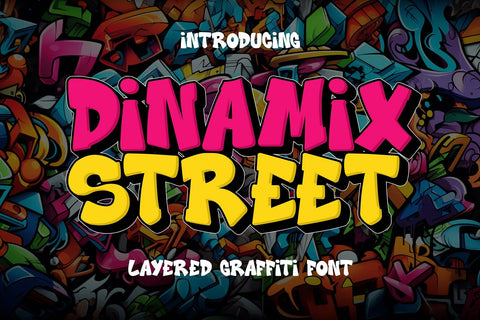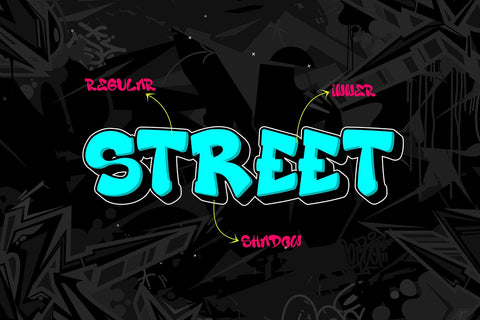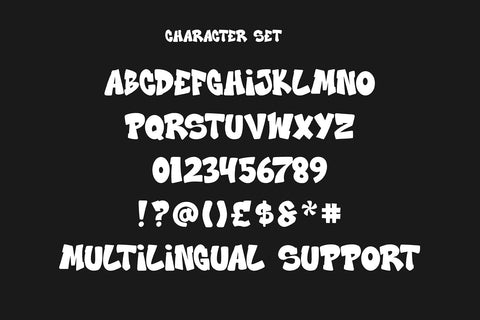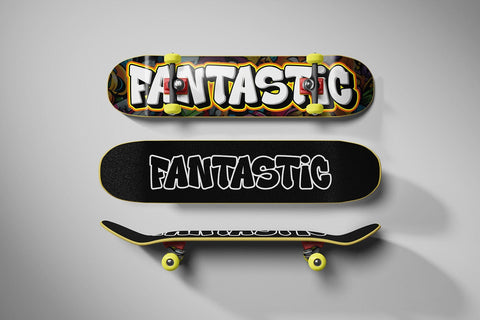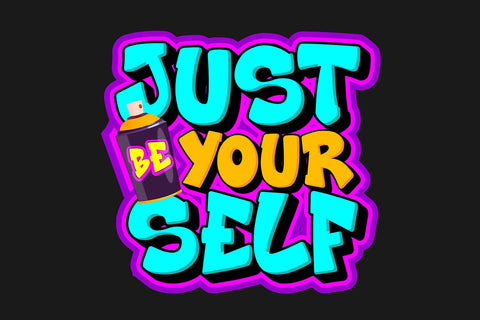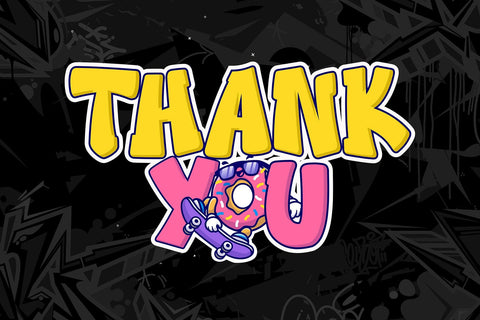
Dinamix Street - 3d Layered Graffiti Font
Dinamix Street is a vibrant 3D layered graffiti font that brings energy and depth to your designs. With its bold, dynamic characters and multi-layered structure, this font is perfect for creating eye-catching urban art that leaps off the page or screen. Each layer of Dynamic Street—whether it's the solid base, the shadow, or the extrude—adds dimension and a sense of movement, making it ideal for projects that require a strong, impactful visual presence. This font is particularly well-suited for streetwear designs, album covers, posters, and any project that seeks to capture the gritty, energetic feel of street culture. Whether used in its entirety or with selective layering, Dynamic Street delivers a striking 3D effect that enhances the urban aesthetic.